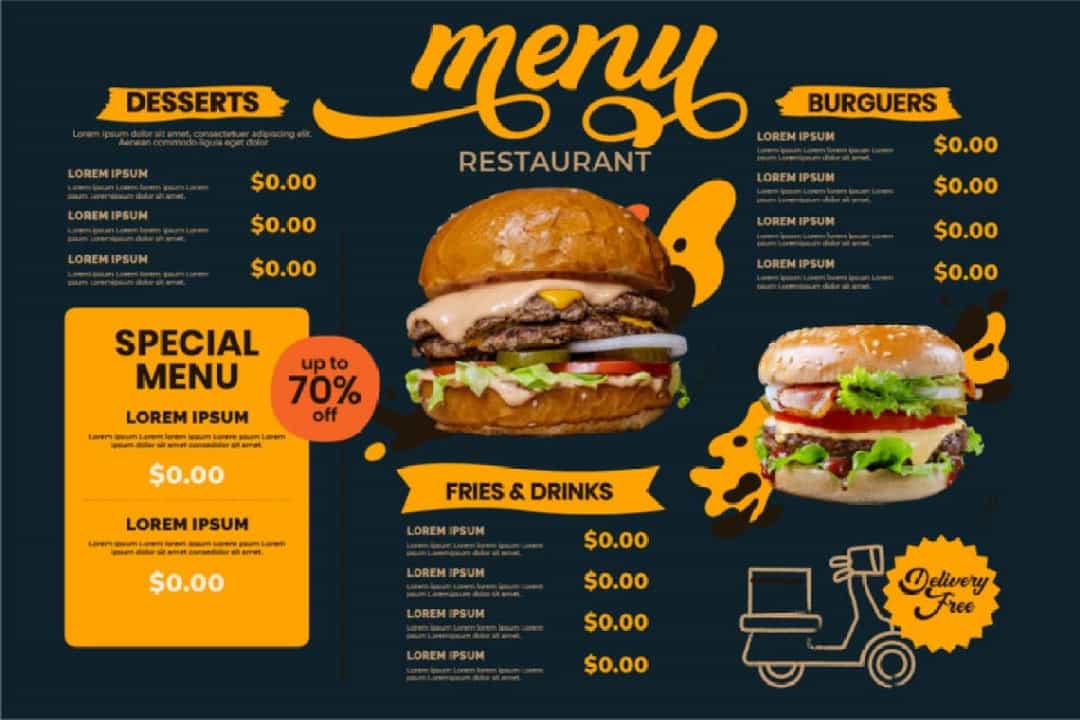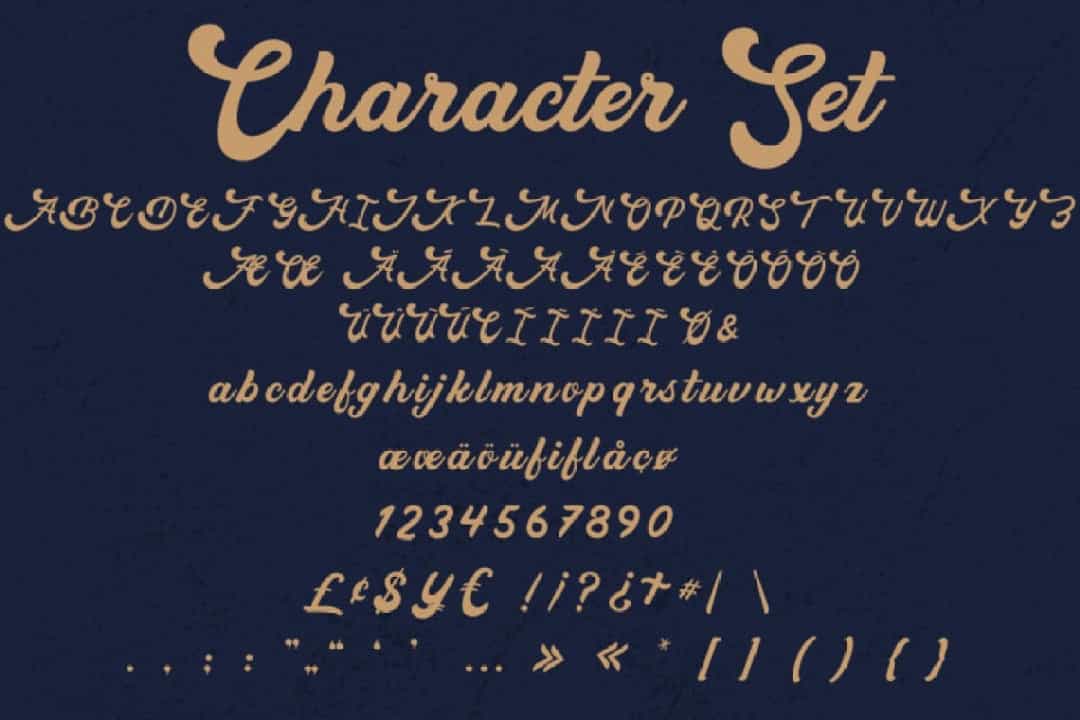
Macrosty is a very old styled font created with an antique theme in mind for any design work that needs a retro look. It is available in both upper and lower case and comes with punctuations, symbols and numerals as well as its stylized versions and Macrosty has multilingual support and is PUA encoded to enhance it security.